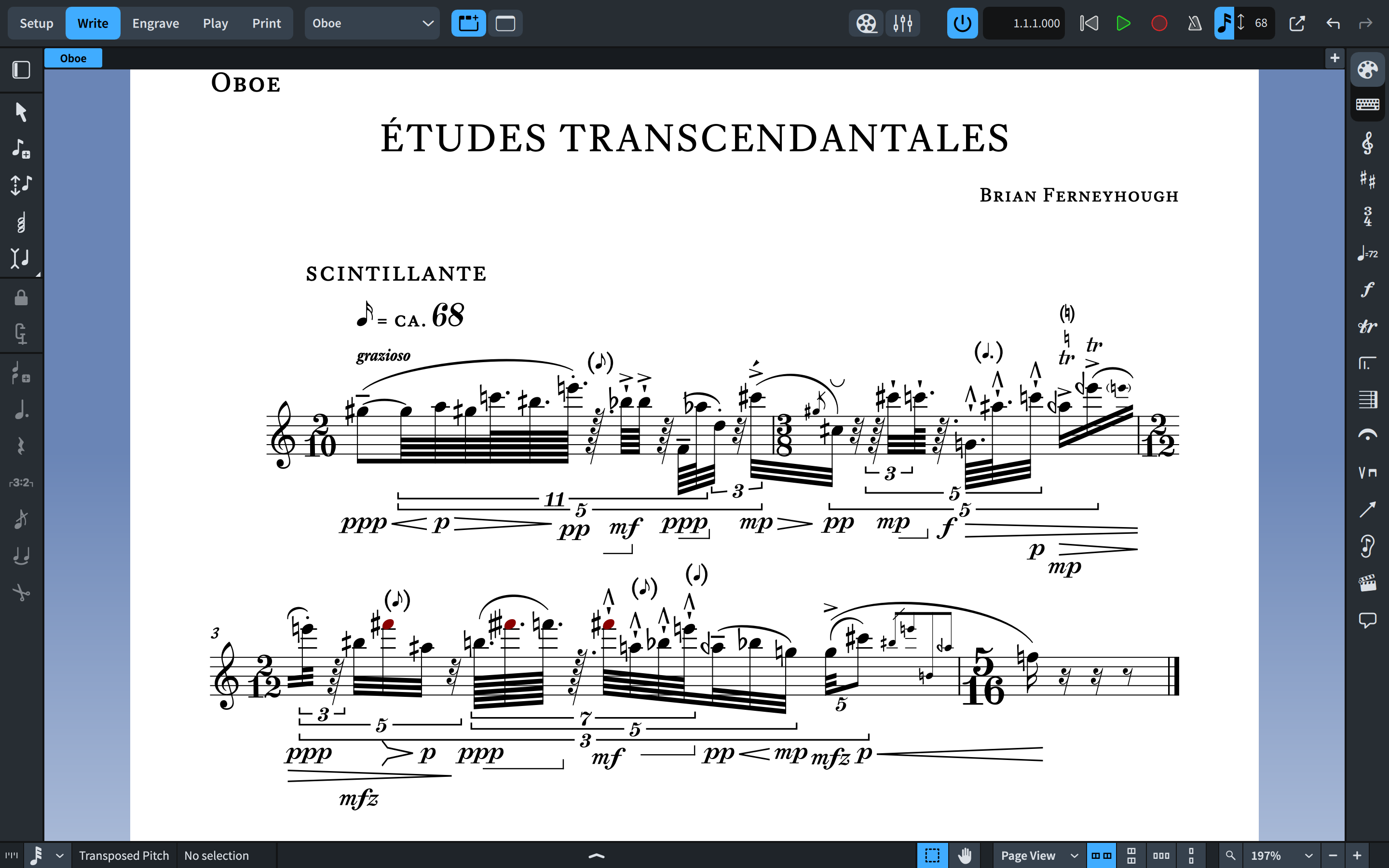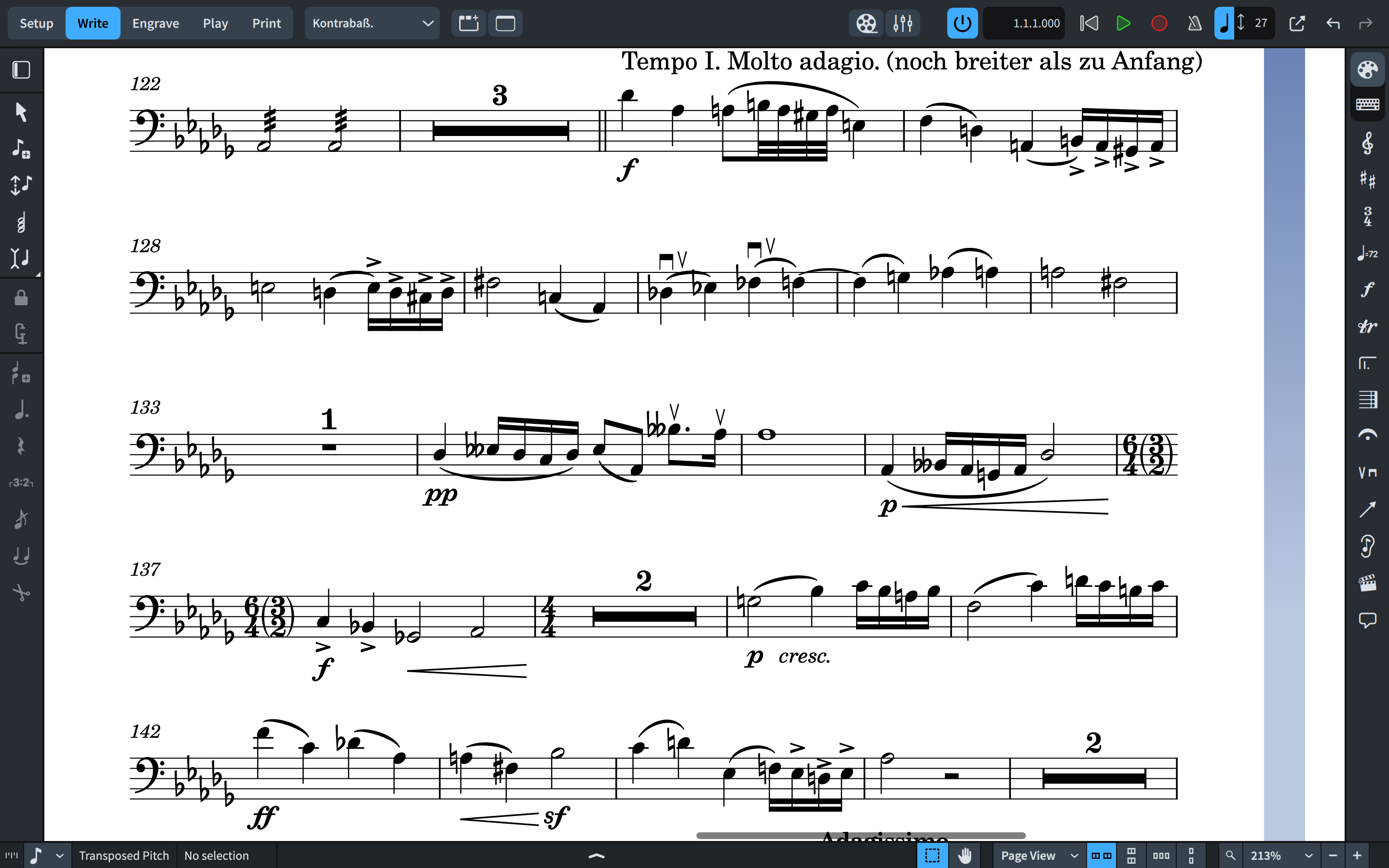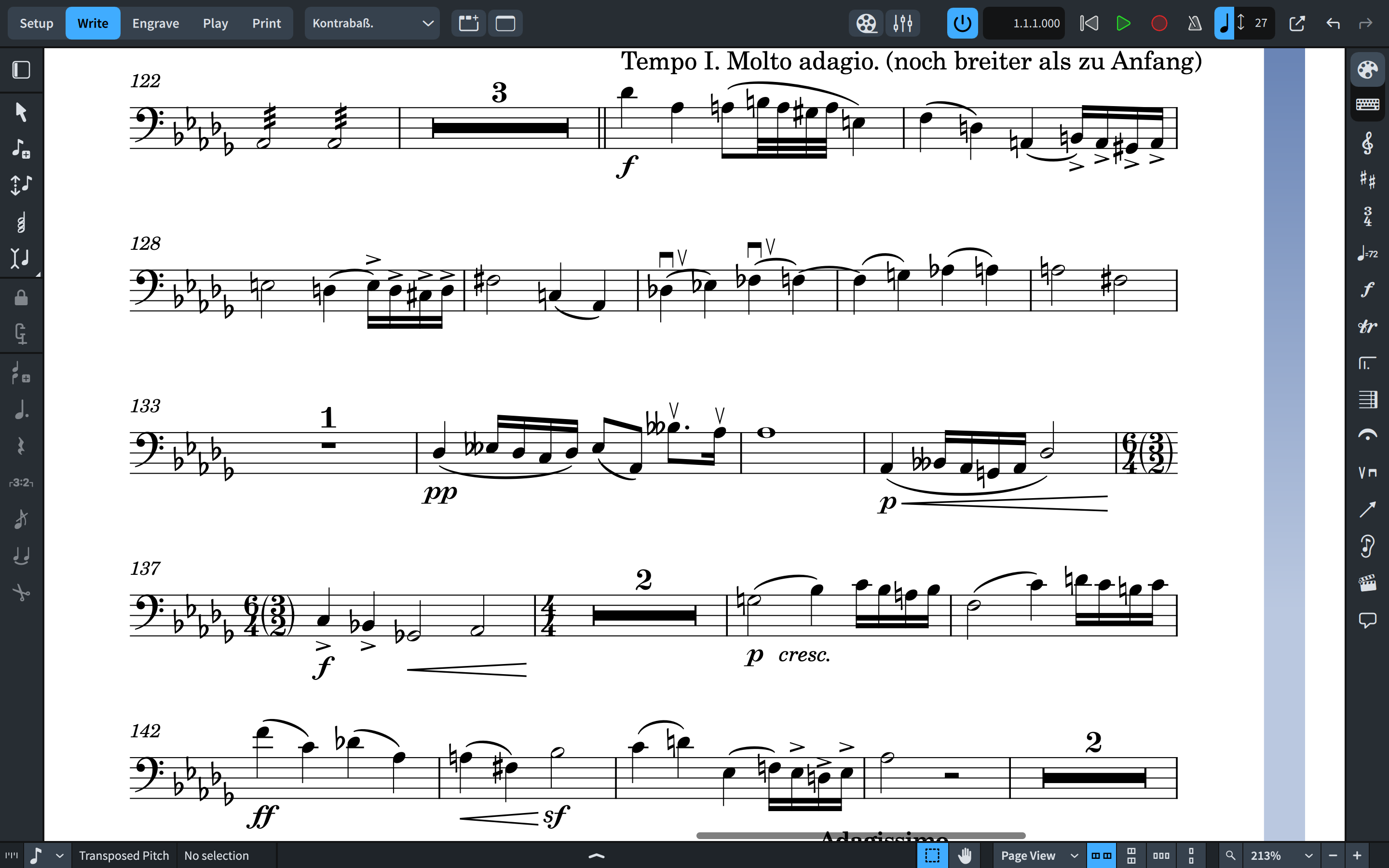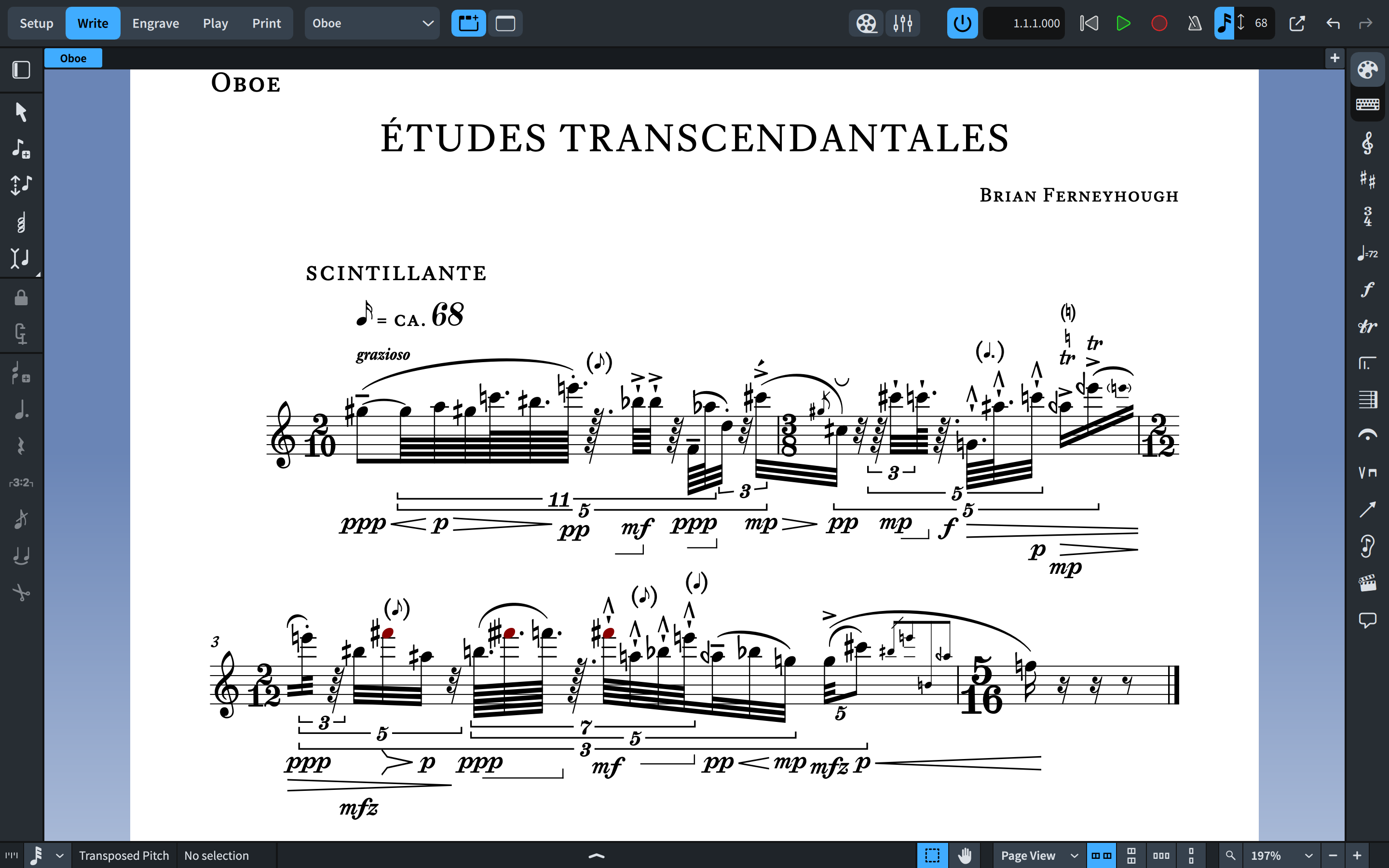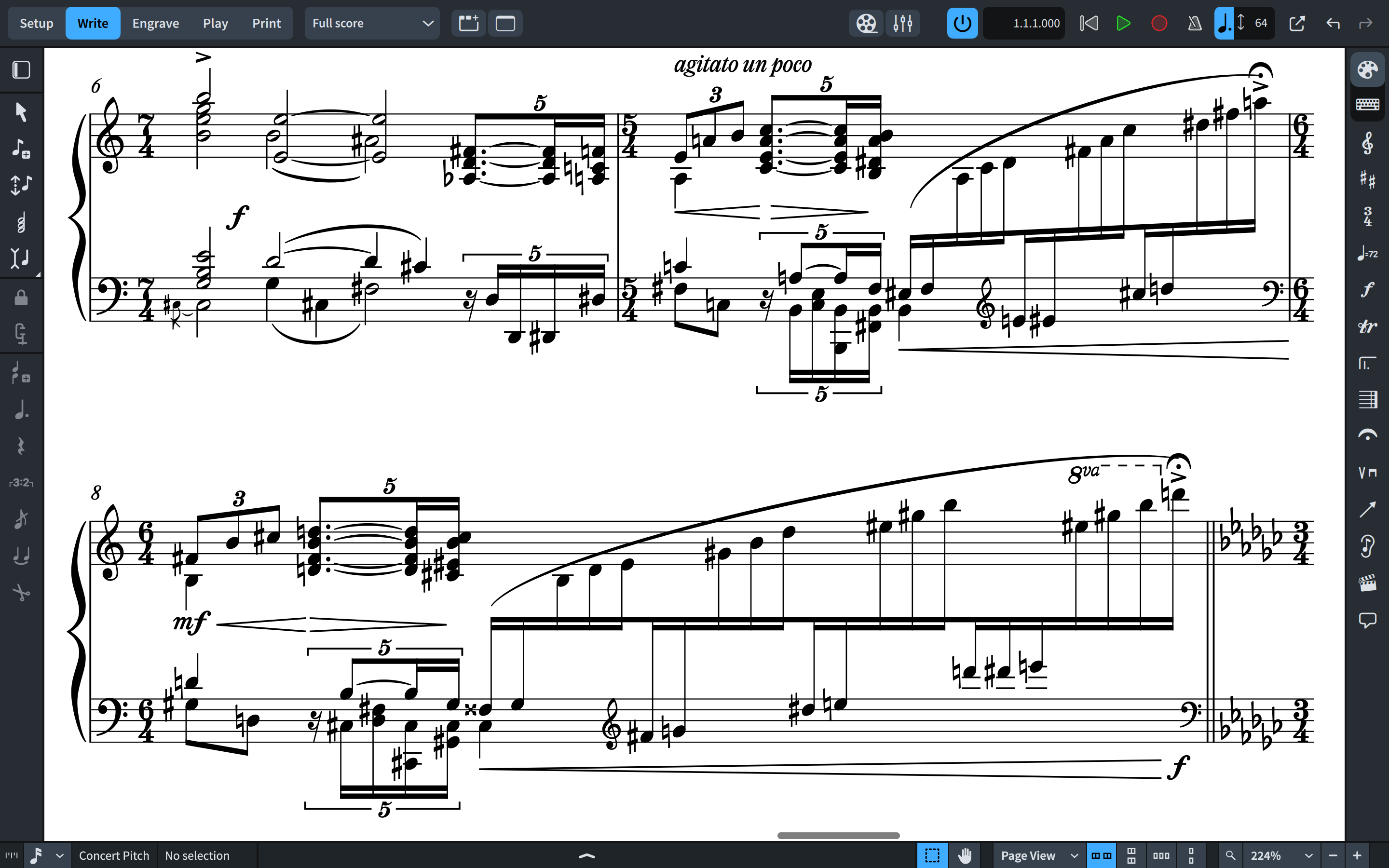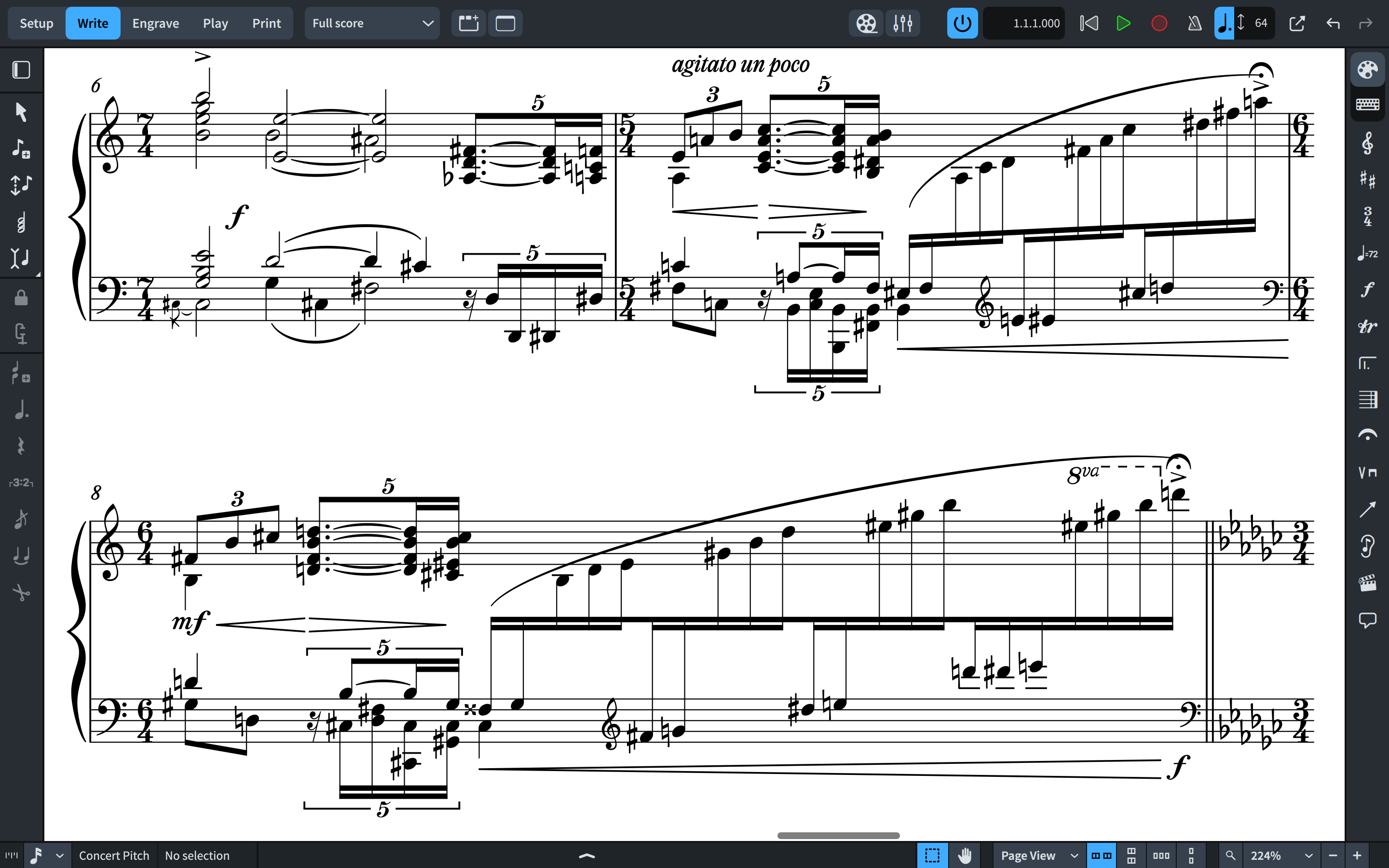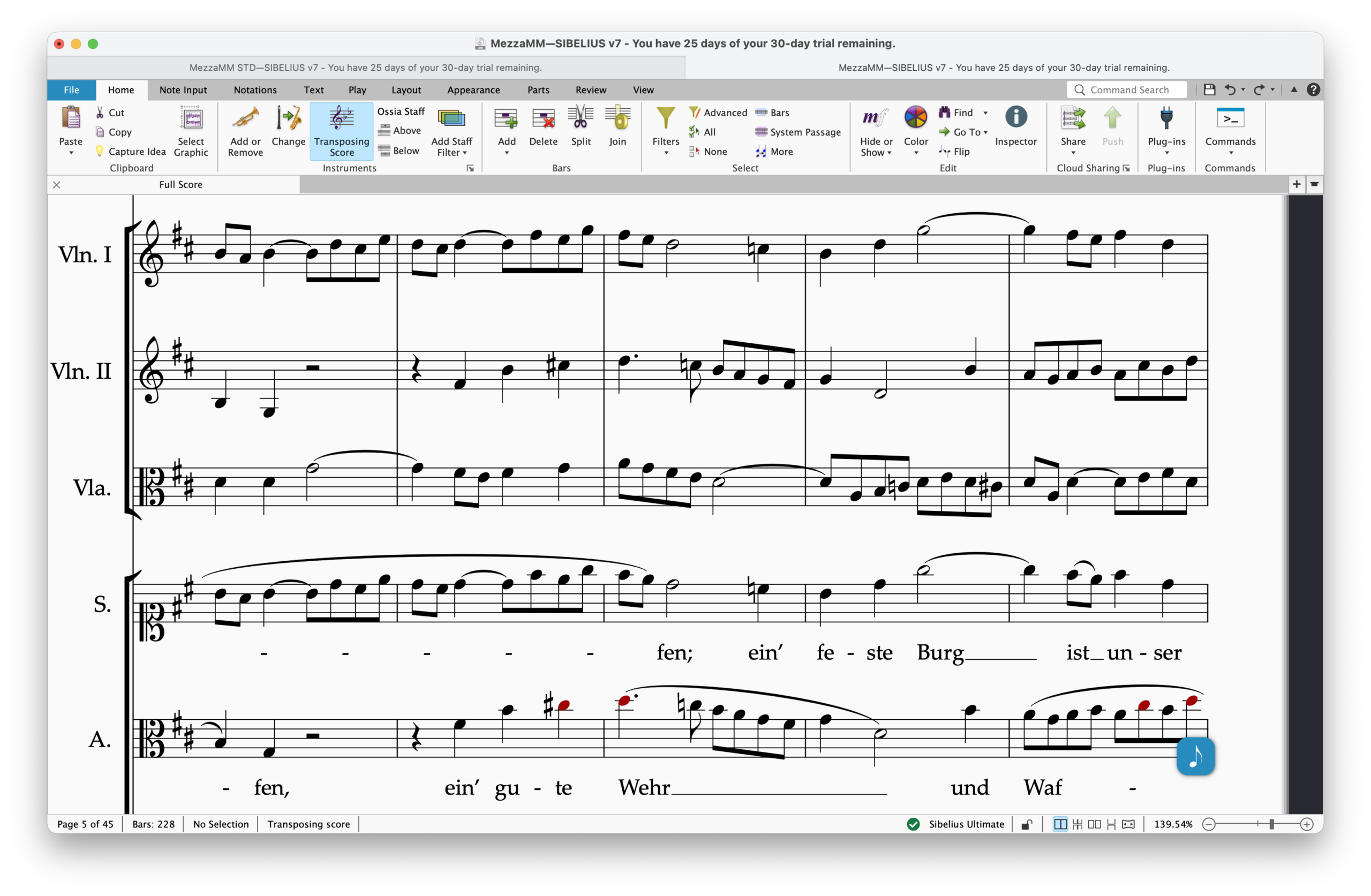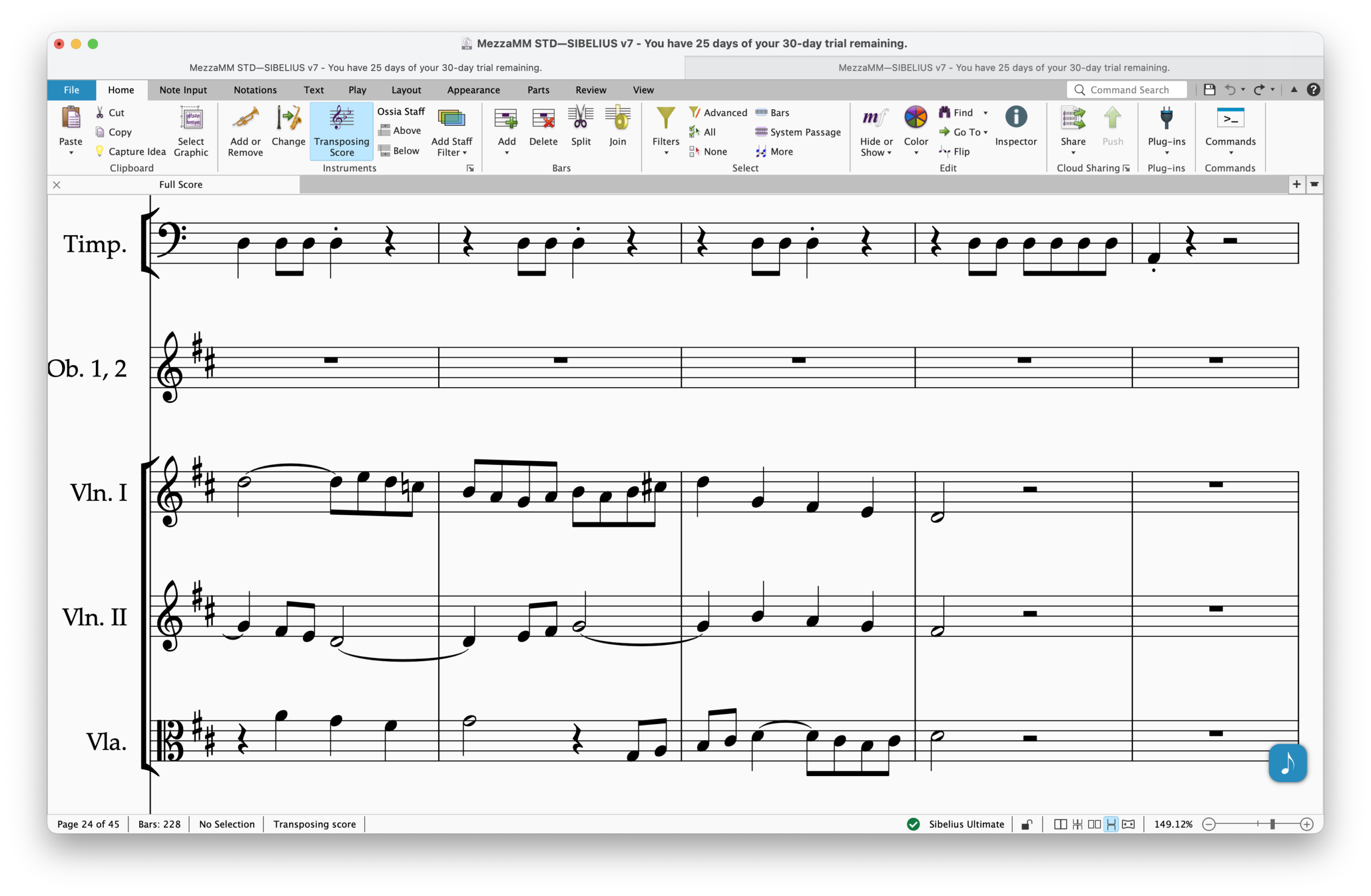
Mezza fonts are elegant engraver music fonts with a standard (MEZZAMM STD) and a lighter appearance (MEZZAMM), yet more robust than some other music fonts, but more accurately representing the look of smooth engraved music. Mezza & Mezza Std can be used for modern sophisticated Pop or Rock, Jazz Bands, Piano and Vocals, Choirs, Marching Bands, and all types of musical ensembles even Symphonies! Mezzo comes with a unique subtle individuality, but with a softer and fatter look which makes it a great use for school manuals and education materials. Both fonts look fun and easy, and will not scare your students! Mezza & Mezza Std work with Sibelius as an alternative to Opus, and Helsinki fonts.